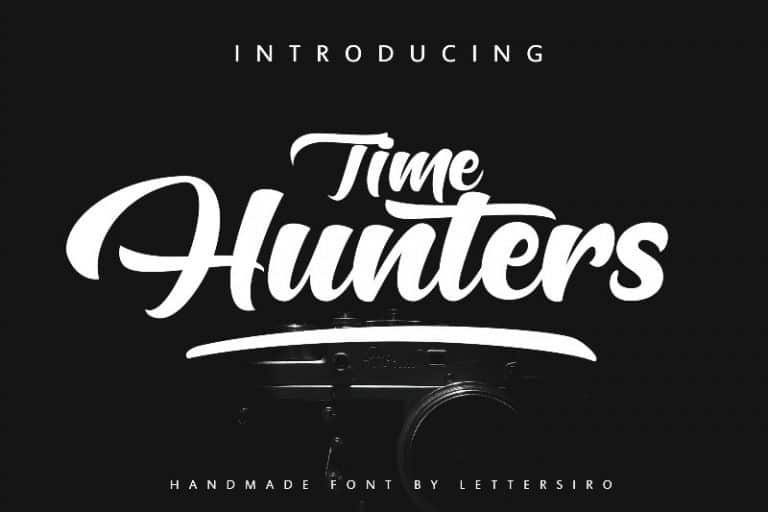
Hunters Bold Script Font
Hunters Font is a playful bouncy modern bold script font. This font is especially perfect for crafters, Hunters is perfect for crafting, svg designs, logotype creation, lettering compositions, wedding invitations, fashion projects, book design cover, magazines typography, cards, packagings, posters, branding and more. This font is also support multi language.